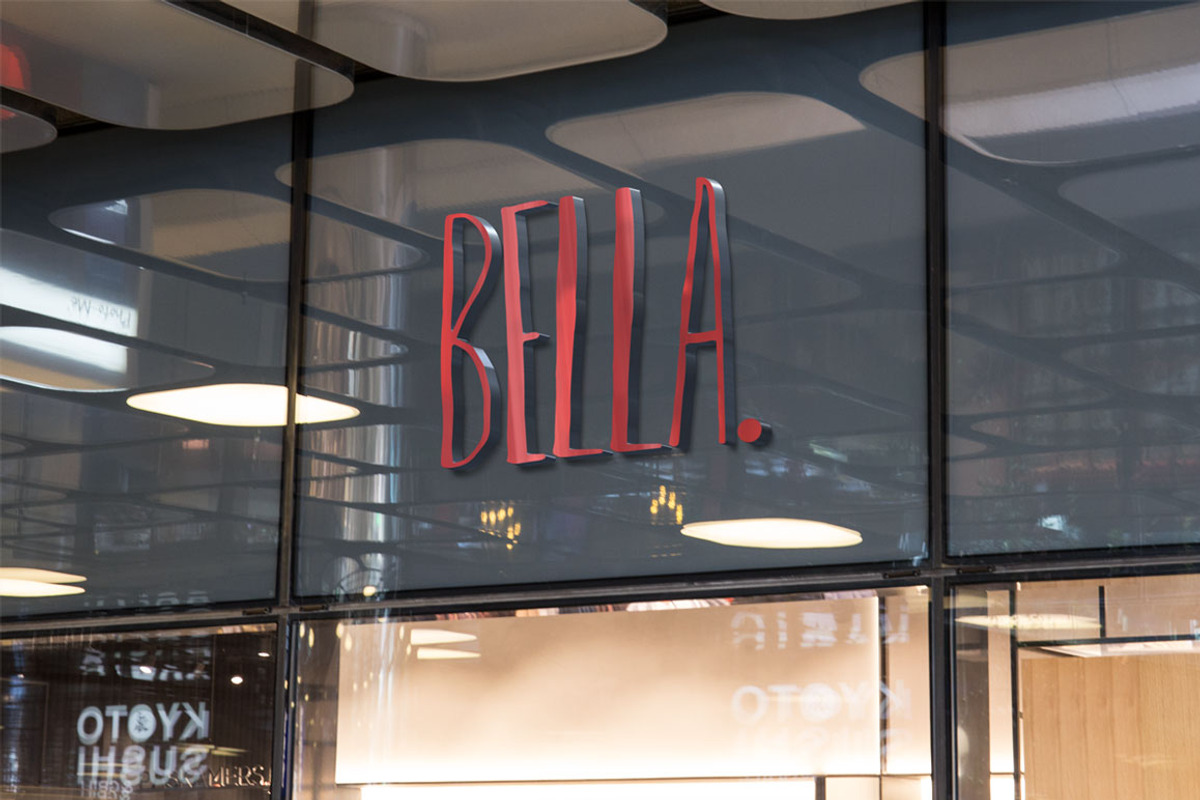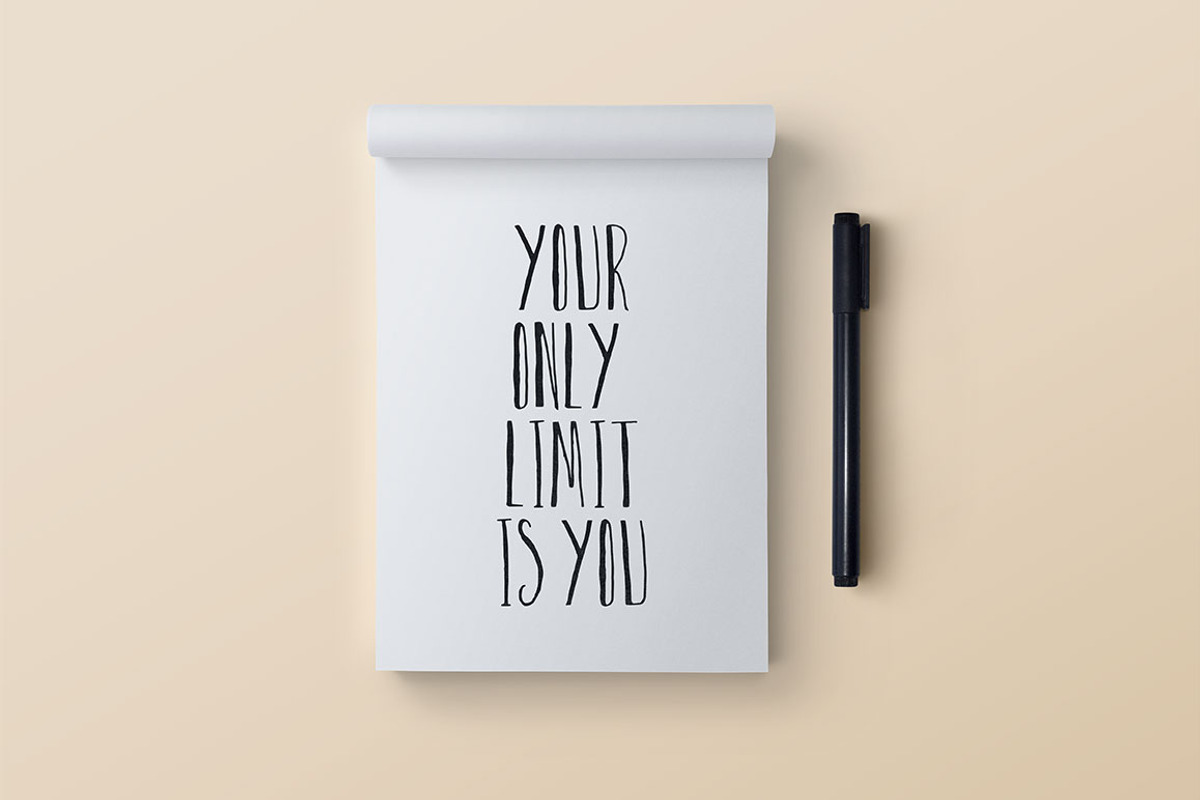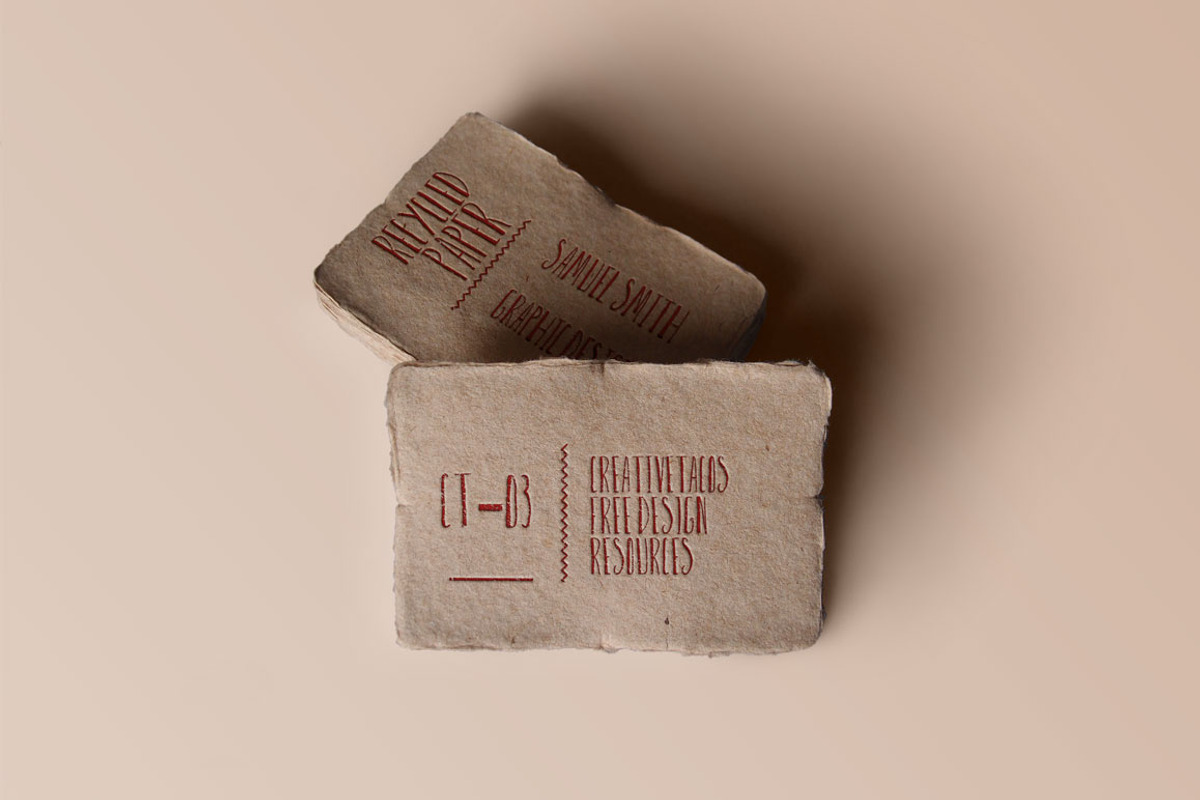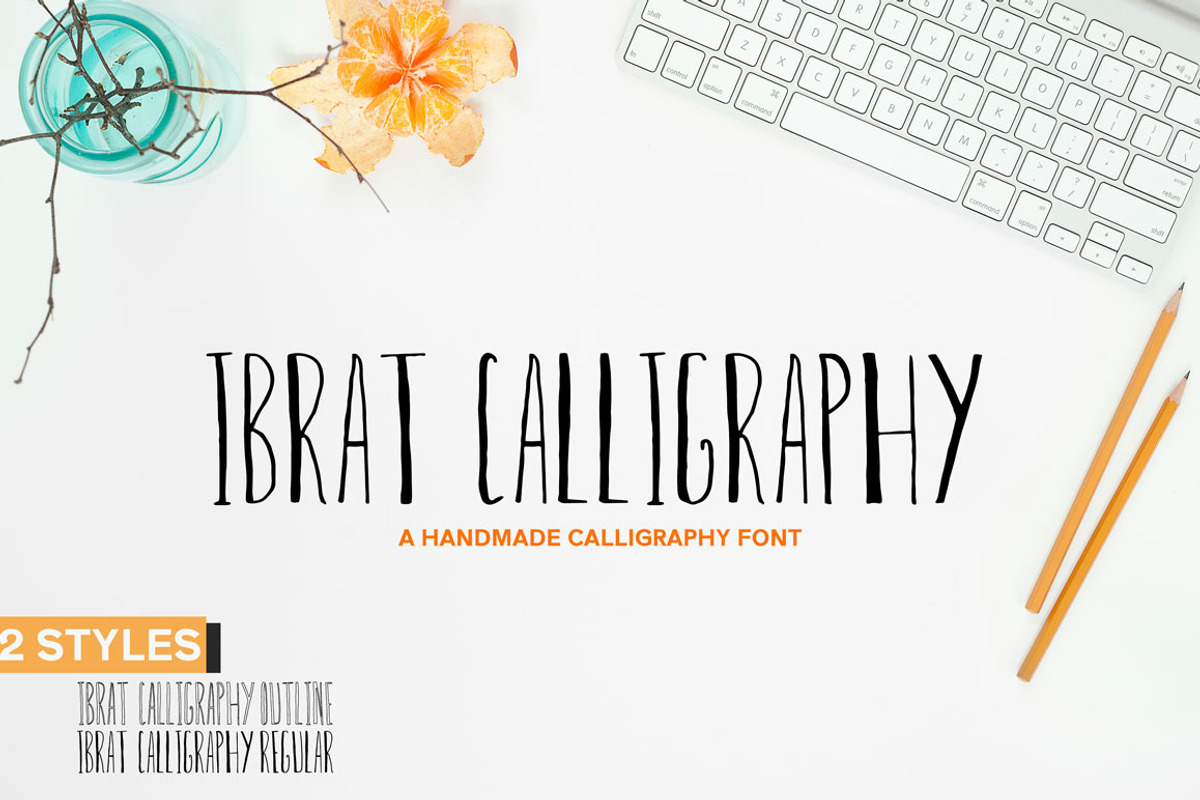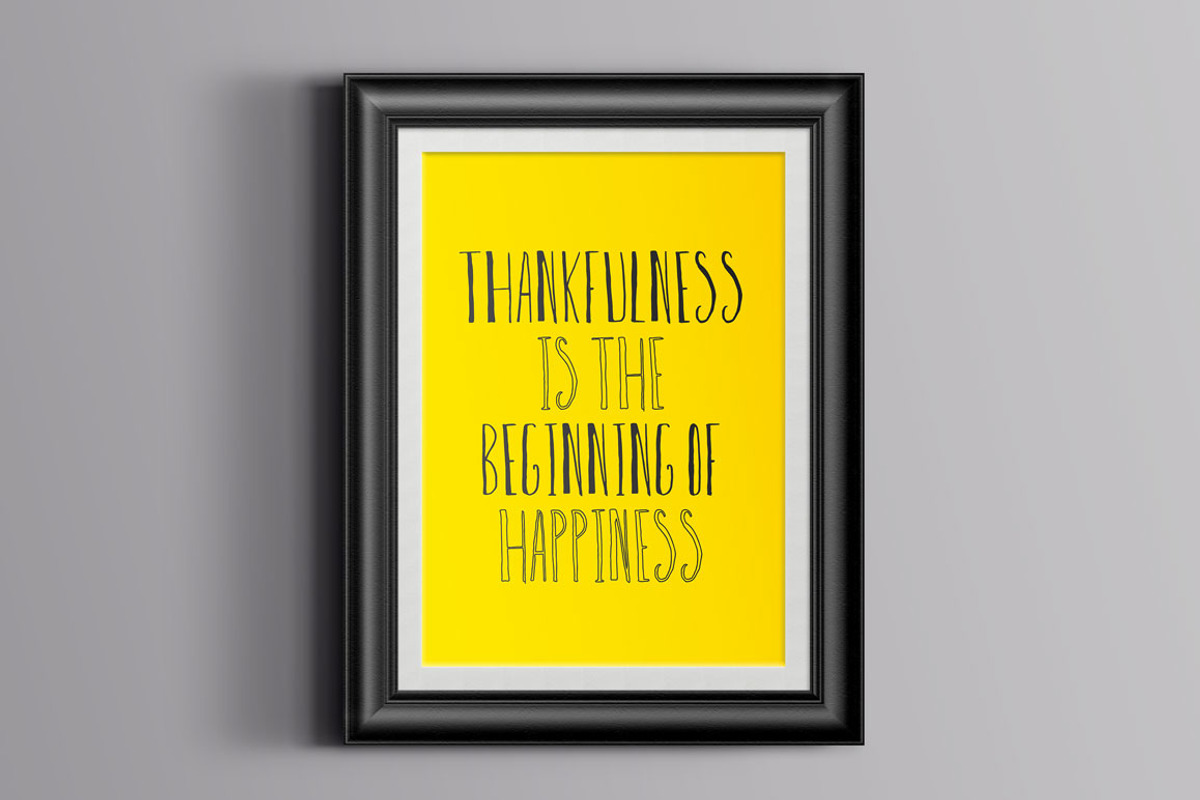
Ibrat Calligraphy Font
Ibrat Calligraphy Font by Creativetacos is a font selected for branding, posters, packaging, typography.
- Font Weight: Regular and Outline
- Ibrat Font Features:
- Uppercase Letters
- Lowercase Letters
- Numbers & Punctuation
- Punctuation and Special Characters
- Ibrat Calligraphy Regular
- Ibrat Calligraphy Outline
Why Ibrat Calligraphy Font is worth a look
Ibrat Calligraphy Font by Creativetacos fits naturally into Branding, posters, packaging, typography.